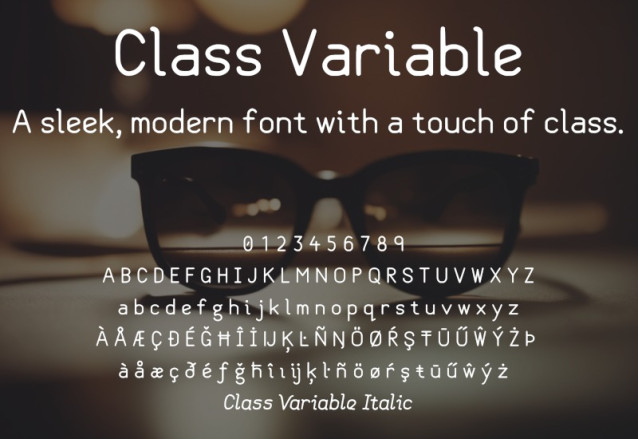
Class Variable Font , perfectly fit for branding, logo, wedding things, greeting cards, fashion, lookbook, marketing promotion, anytime you want to look fancy elegant but still casual.
Class Variable Font